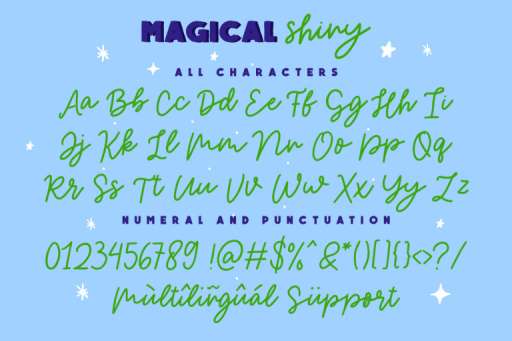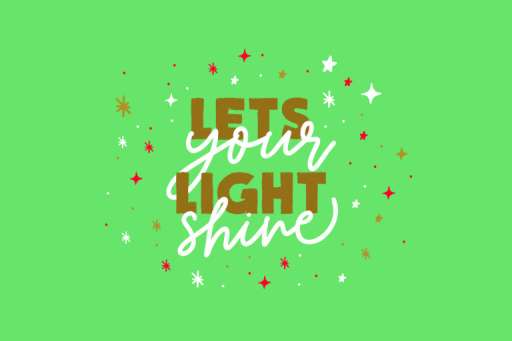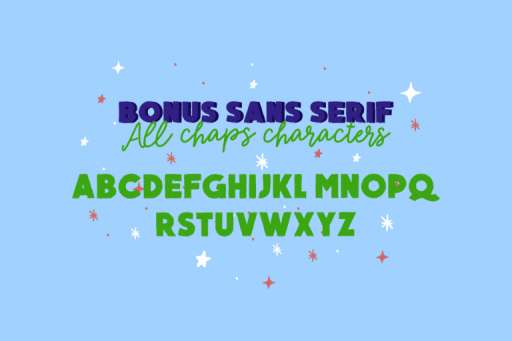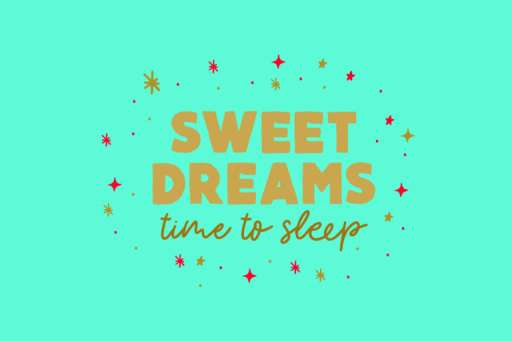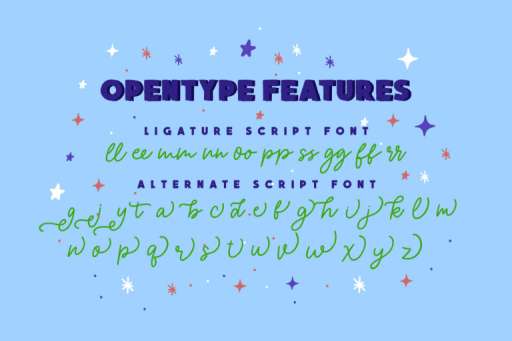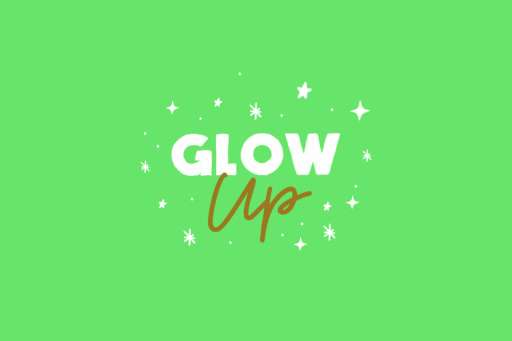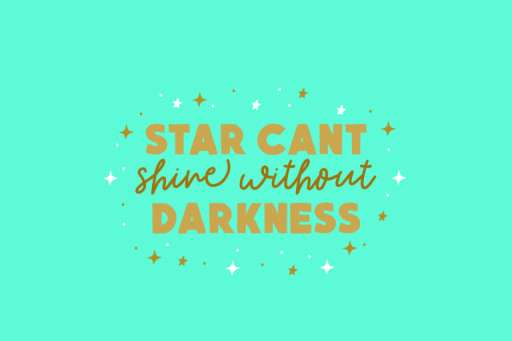
Magical Shiny Font - Script Business Font From Jimtype Studio
Magical Shiny Script
Magical Shiny Sans
Magical Shiny – Sweet and Versatile Duo Font
Magical Shiny is a font duo that combines script fonts with sans serif fonts. Magical Shiny is a fun font that is perfect for your new designs. This font is perfect with the addition of little sprinkles. Magical Shiny perfectly for magazines, books, invitations, wedding/greeting cards, packaging, marketing, etc.
Magical Shiny Features :
• Alternates
• Multilingual